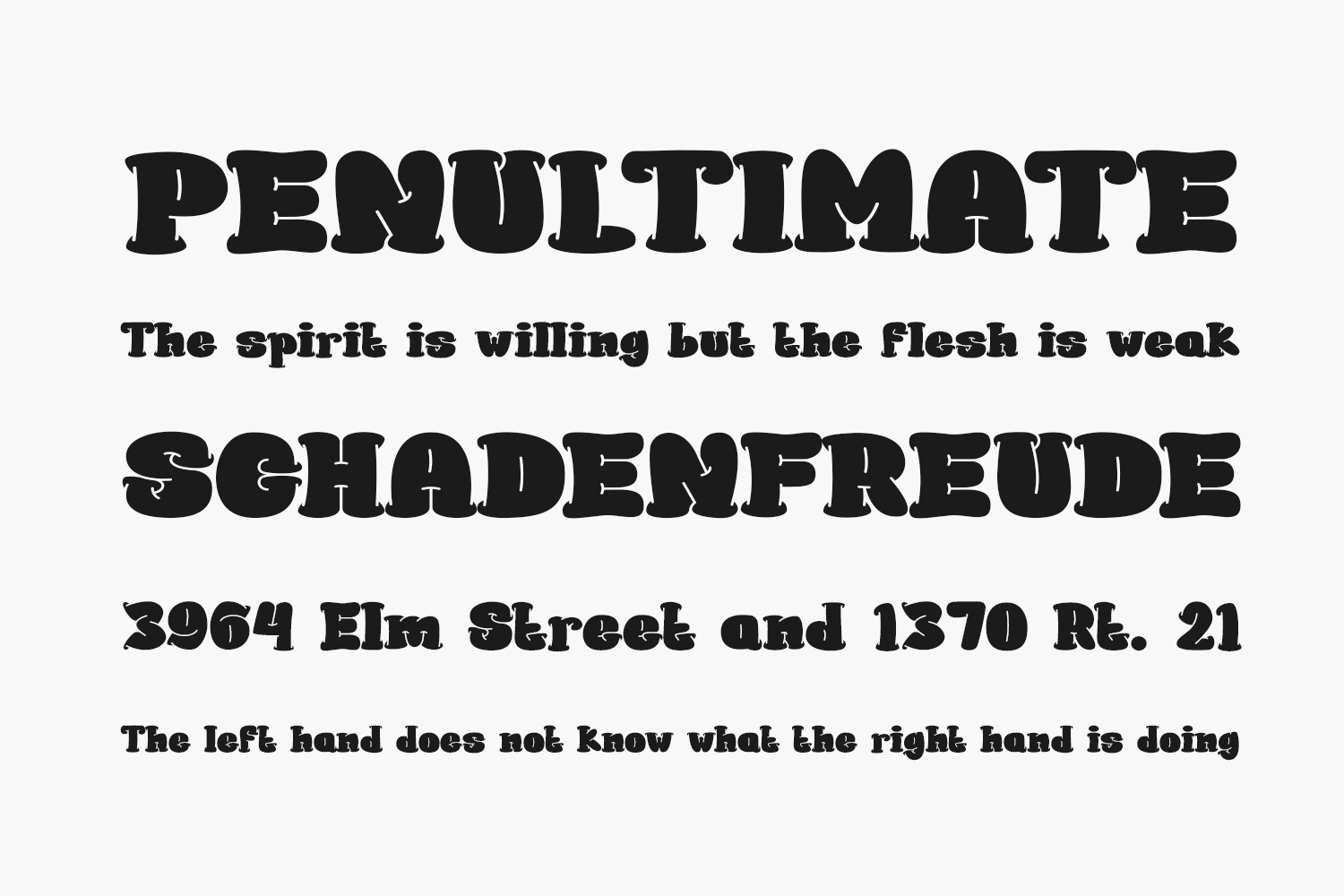
Goof Ball Free Font is a playful serif font for cartoon vibes. Embrace the resurgence of retro style, as it sizzles with unmatched appeal! Introducing Goof Ball, the ultimate font that injects a dose of fun into your nostalgic projects. This versatile typeface is an ideal choice for a variety of applications, including retro comic books, online games, vintage event posters, school supplies branding, captivating posters, eye-catching movie titles, engaging YouTube covers and thumbnails, captivating social media page covers, and much more. Goof Ball Free Font is free for personal use only. Please purchase the full version for commercial use.